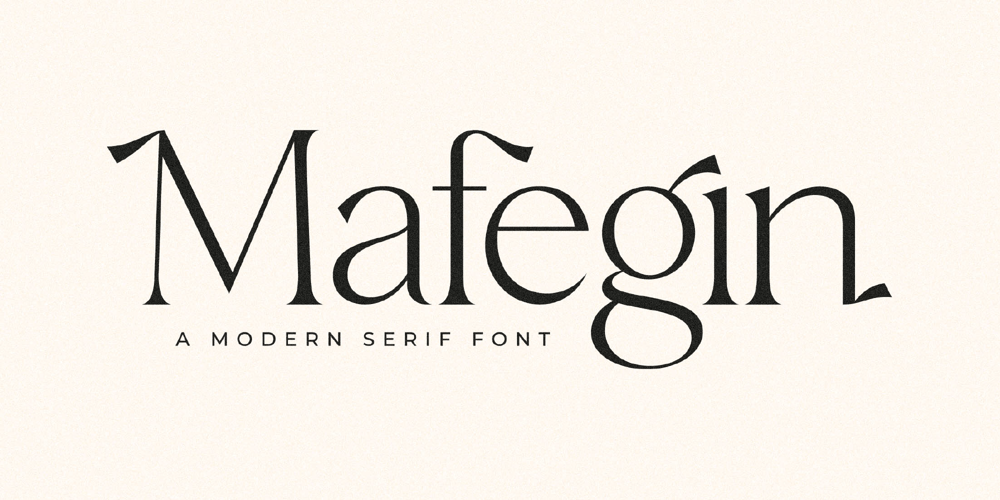
Mafegin Font Family was designed by Heru Utama Putra and published by Letterena Studios. Mafegin contains 2 styles and family package options. Mafegin is a stylish and elegant serif font that has its own unique style and modern look.This typeface is perfect for logos, book or movie title designs, fashion brands, magazines, clothes, lettering, quotes, and so much more.